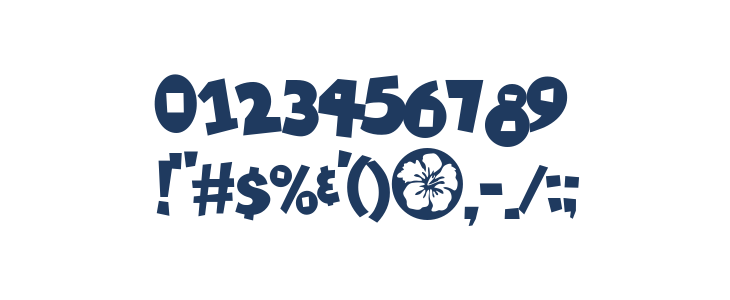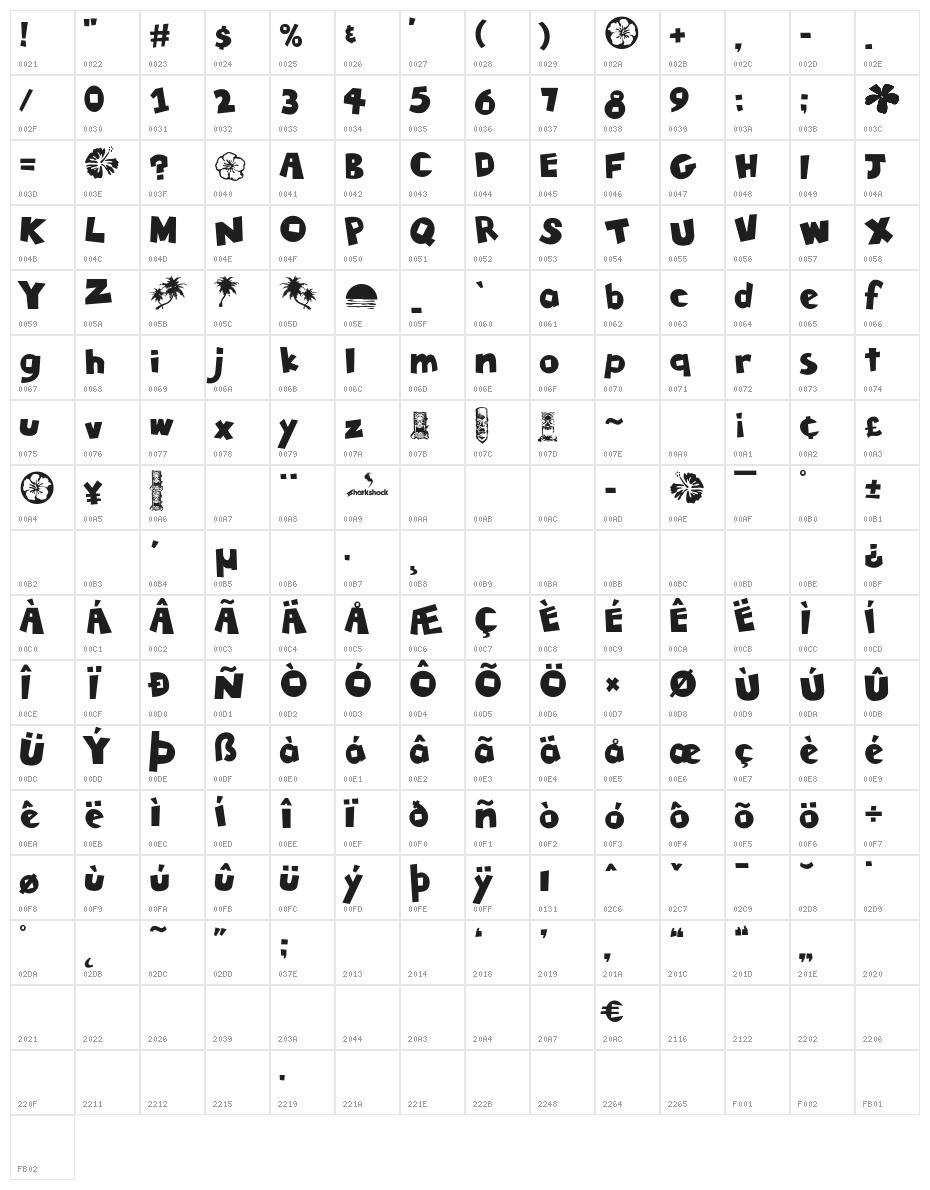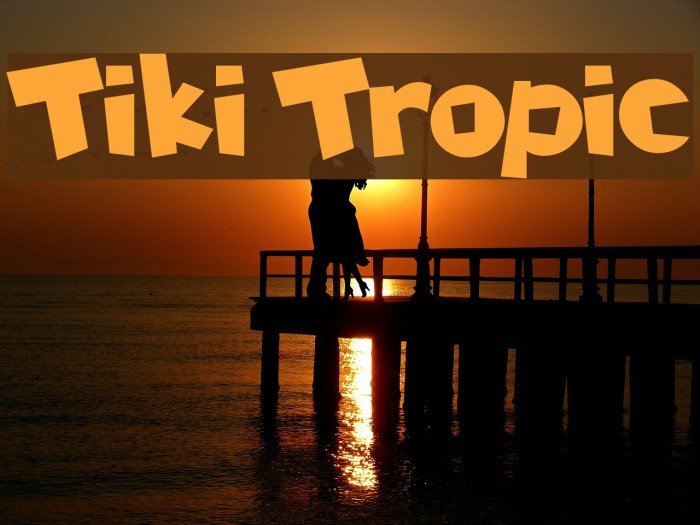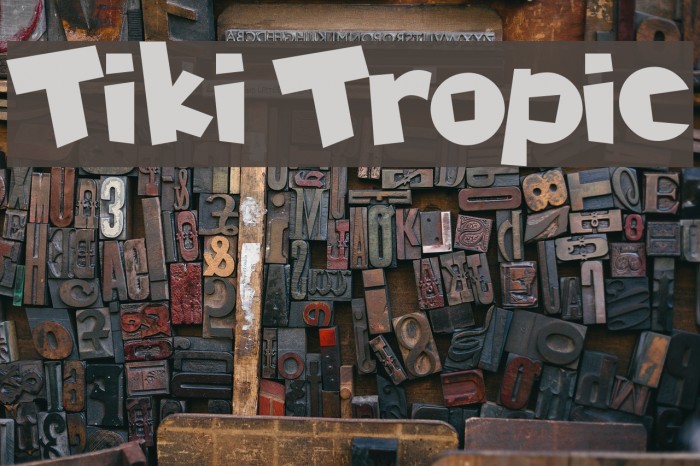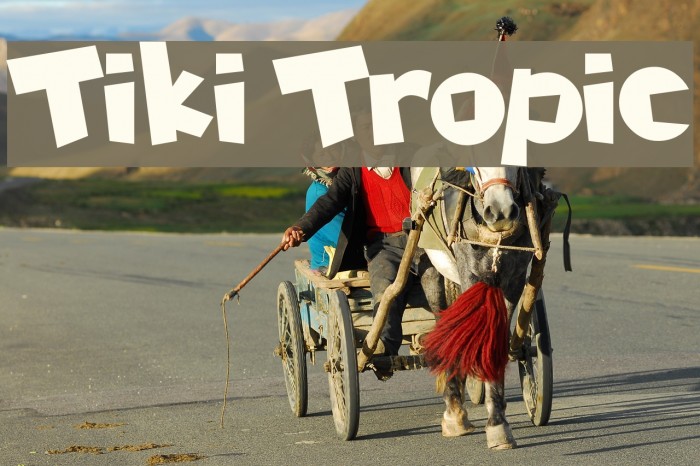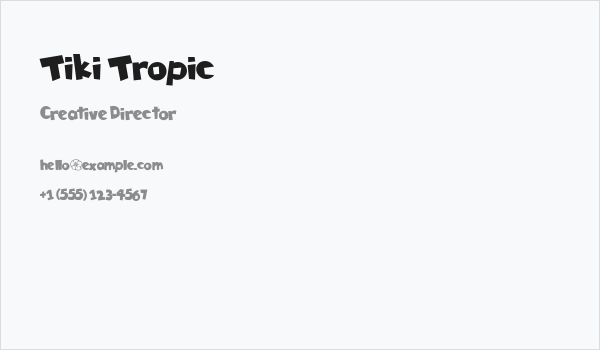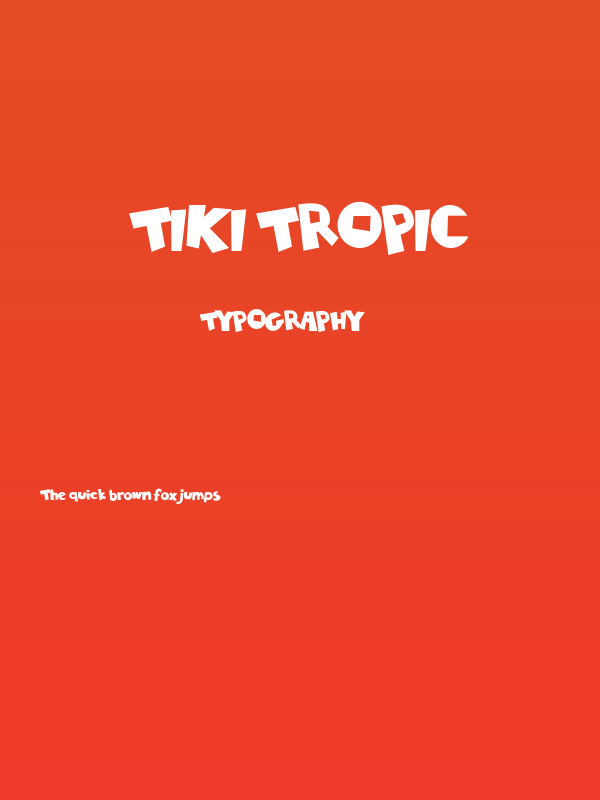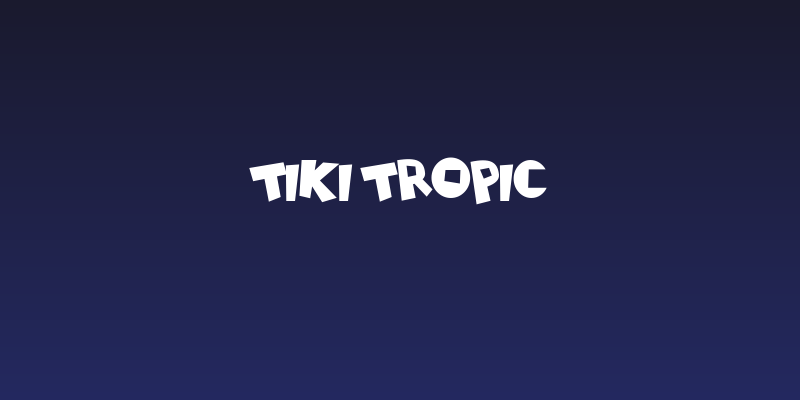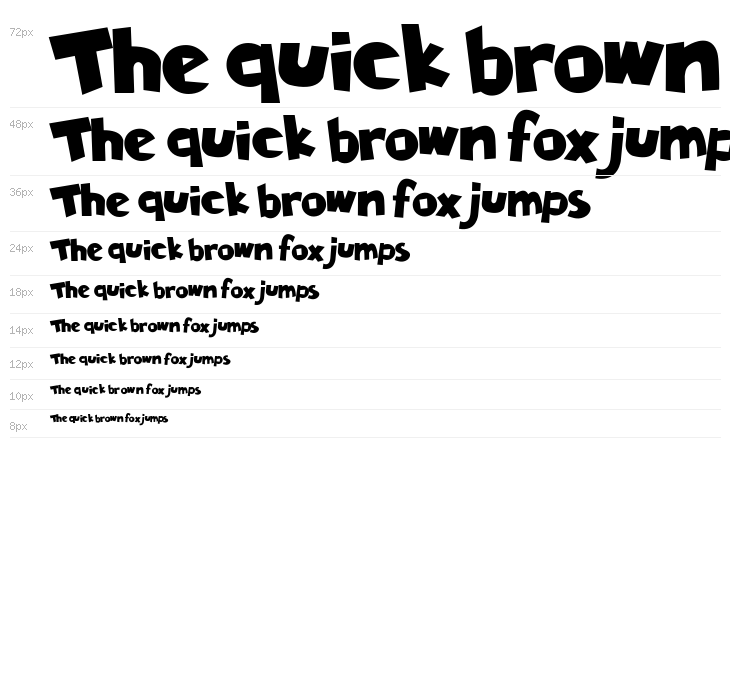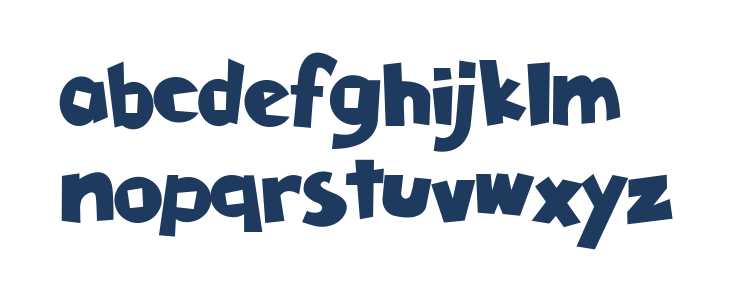
Tiki Tropic Font
Tiki Tropic Description
This font features a playful and bold design, characterized by its thick, uneven strokes and whimsical style. The letters have a hand-drawn appearance, with exaggerated curves and angles that give it a lively and dynamic feel. The uppercase and lowercase letters maintain a consistent style, with a slightly irregular baseline that adds to its charm. Numbers and special characters are equally bold and expressive, making them stand out. The overall look is reminiscent of tropical or island themes, perfect for projects that require a fun and informal touch.